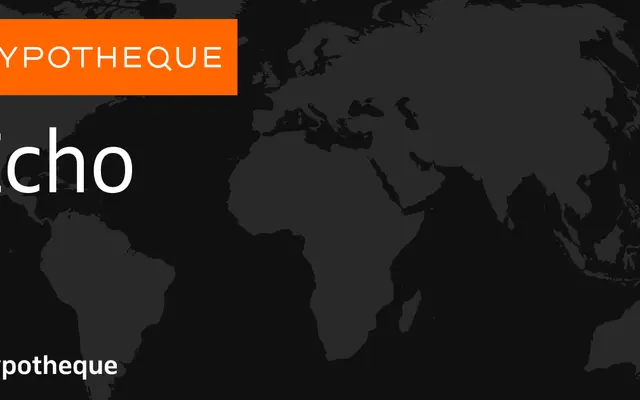
Echo specimen from Typotheque
A structured humanist sans-serif system from Typotheque offered in two subfamilies, Echo and Charlie, across eight weights with matching italics.
Echo is a type system comprising two subfamilies: Echo itself and Charlie, which extends the range with lighter optical cuts including Hairline and Thin. Together they cover eight weights from Hairline to Black, each with italic companions, making the system suited to complex typographic hierarchies. The naming convention for individual styles after world cities suggests international scope and multilingual ambition.
Echo presents as a contemporary humanist sans-serif with a structured weight range and italic companions, typical of text-focused type systems from serious foundries like Typotheque.